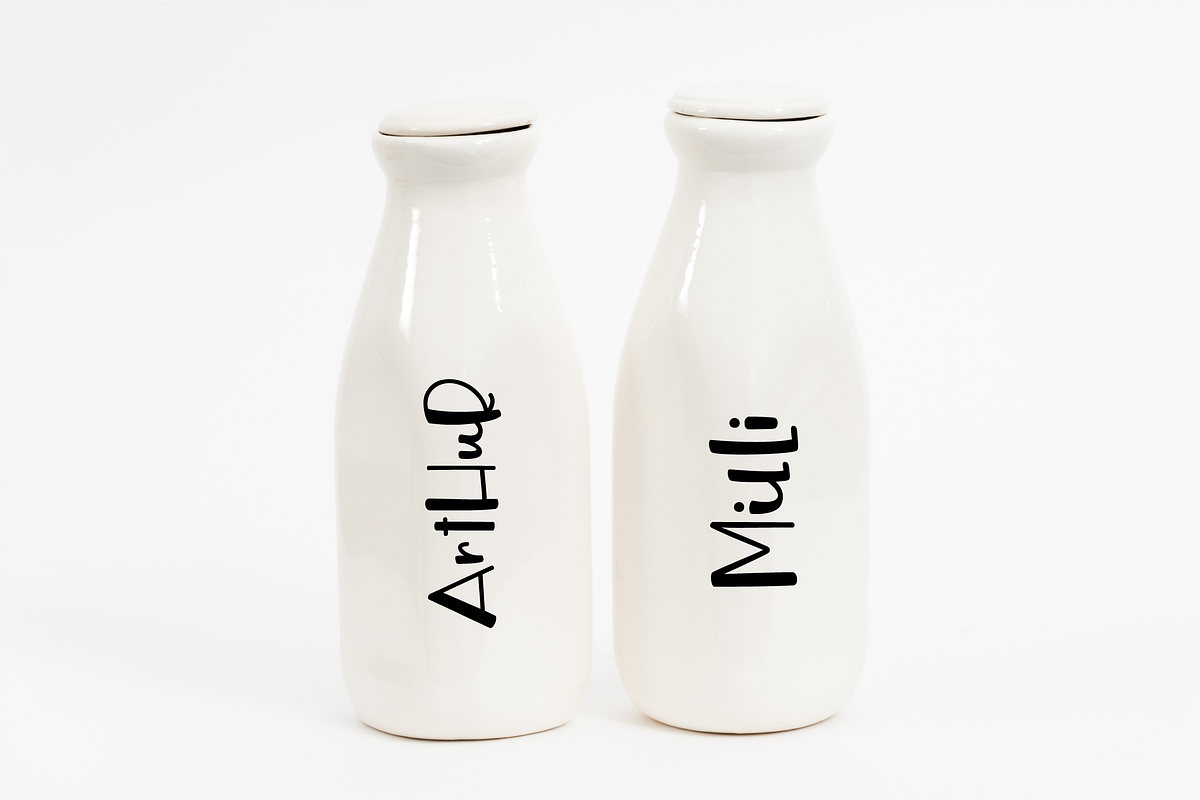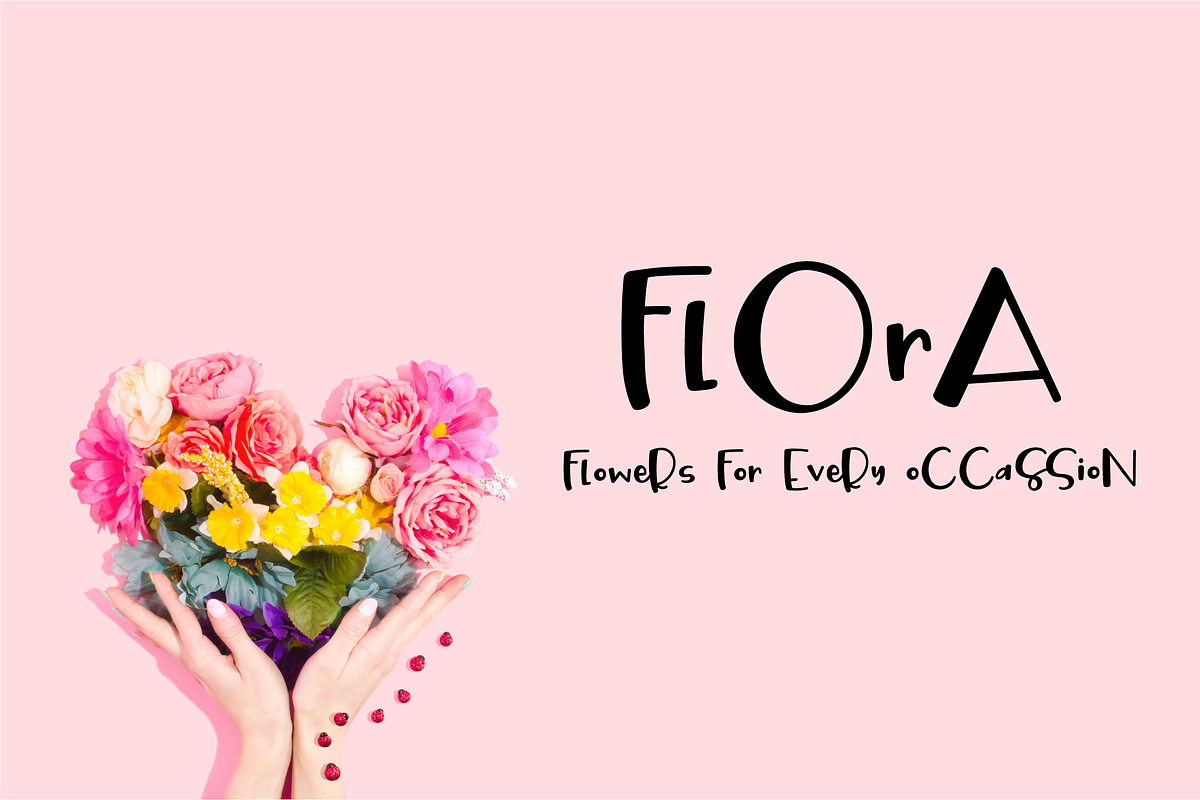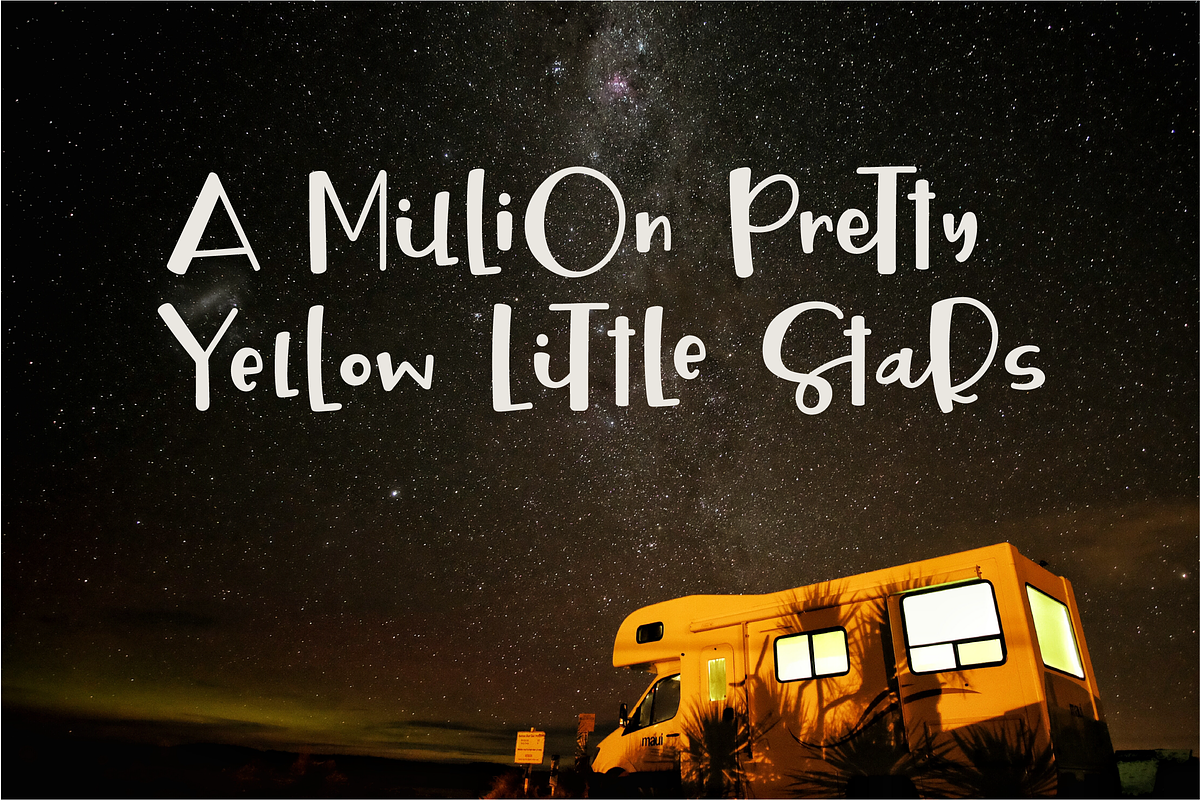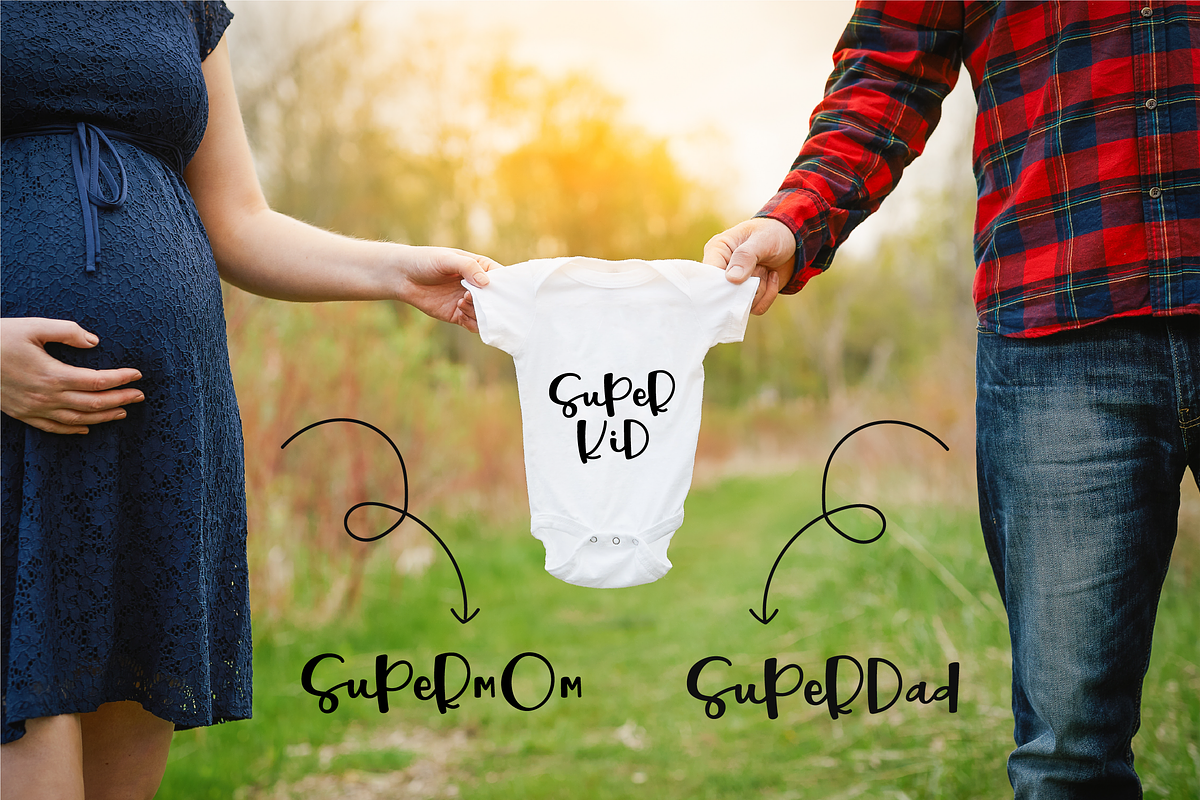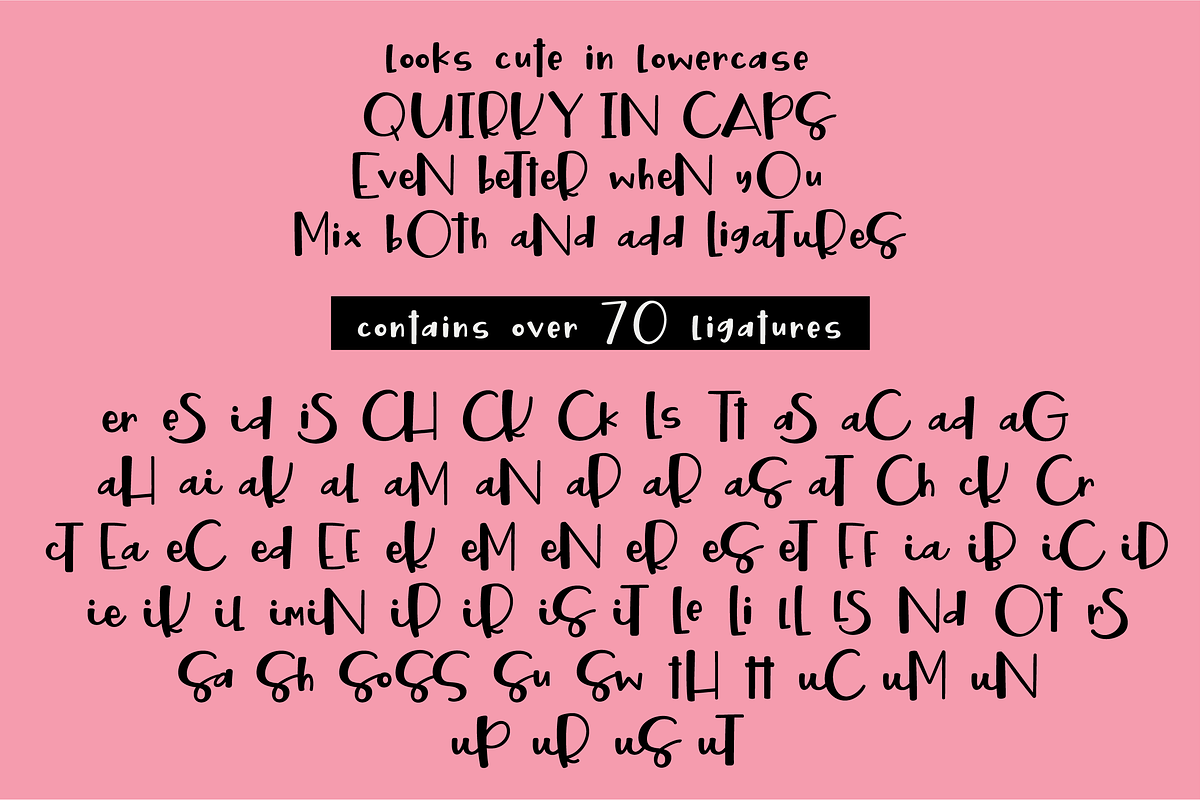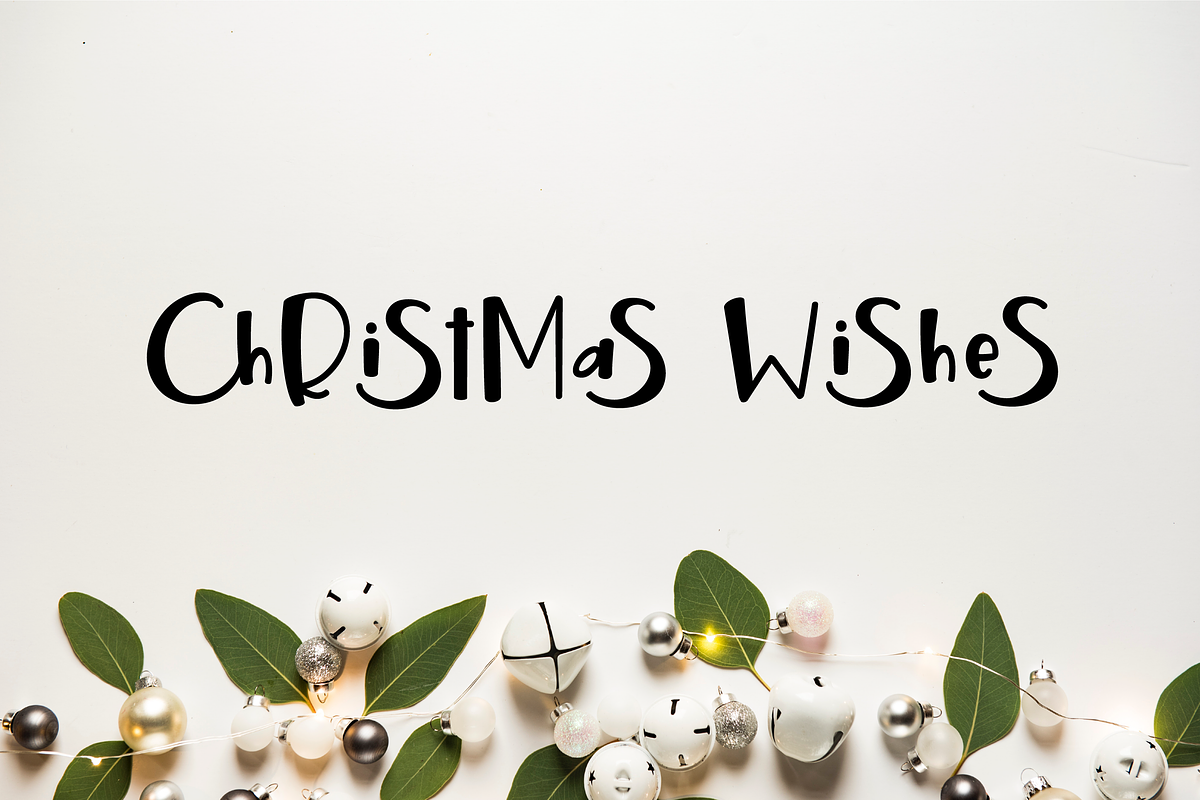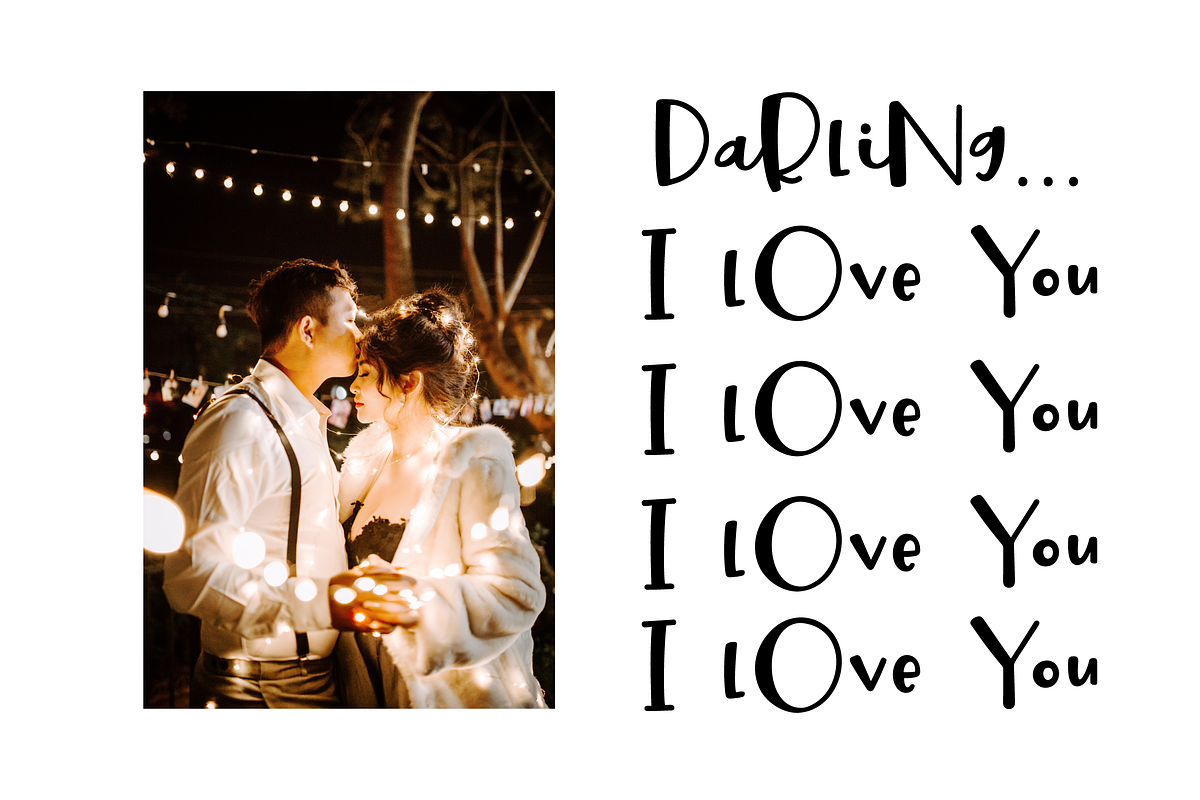
Sale! Twisted Jellyroll, quirky font
Meet Twisted Jellyroll - a whimsically fun mixed-case font that comes with over 70 ligatures to help you add some playfulness to your design projects! Twisted Jellyroll comes with a cute set of tiny lowercase letters, a set of quirky uppercase, numbers, punctuations and a whole lot of crazy fun ligatures! What's included: